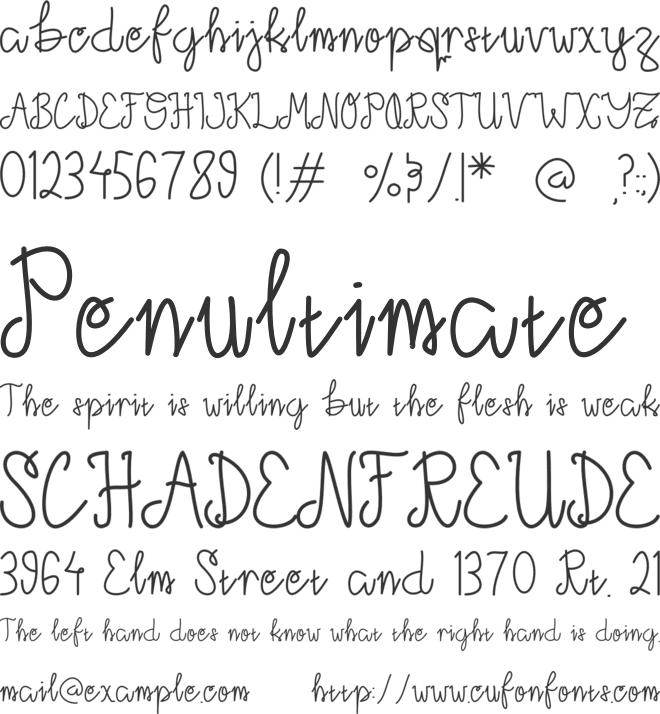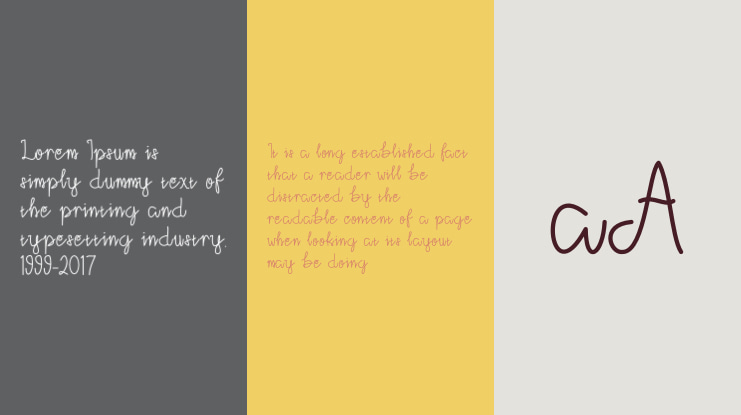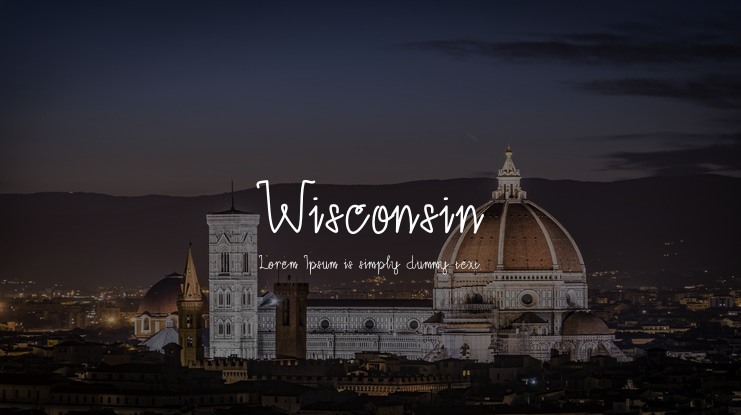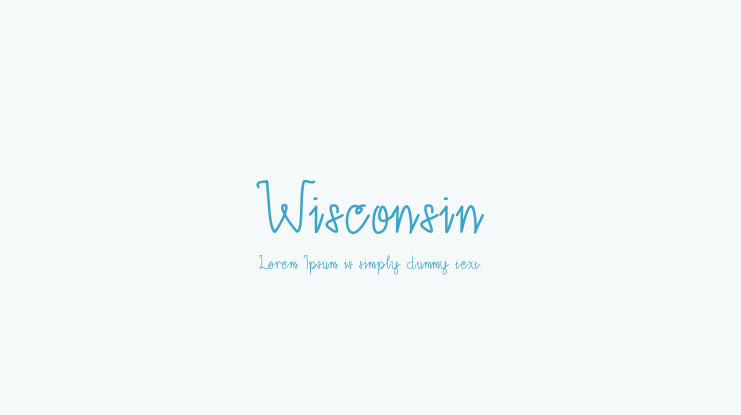
Wisconsin Font
Wisconsin is a simple and delicate handwritten font. It has a clean, thin and smooth vibe and it will be a hit for any design that you want to add it to.It is ideal for any heading, branding, product packaging, invitation, quote, t-shirt, label, poster, logo that you wish to create.